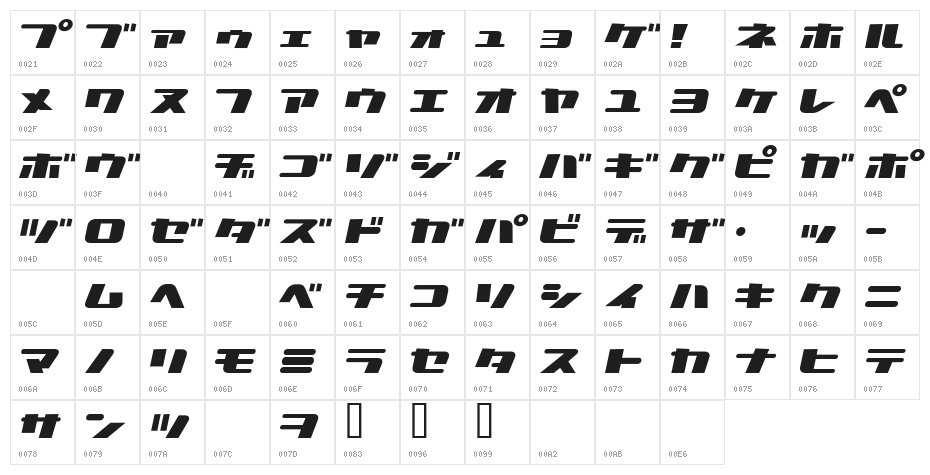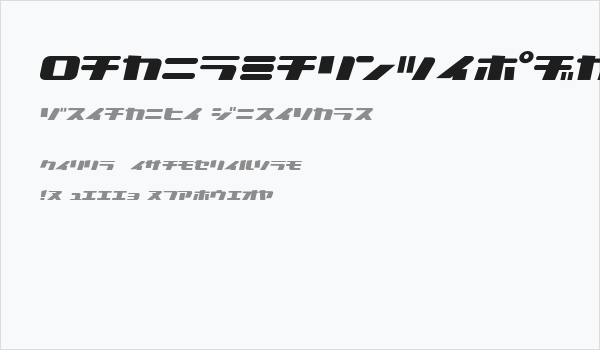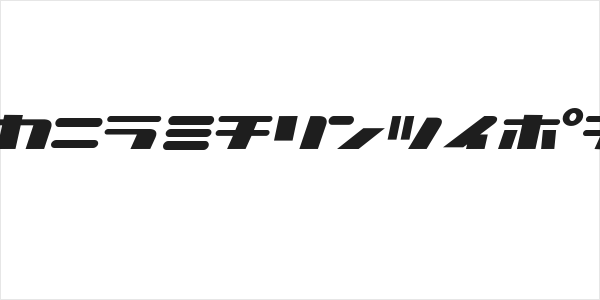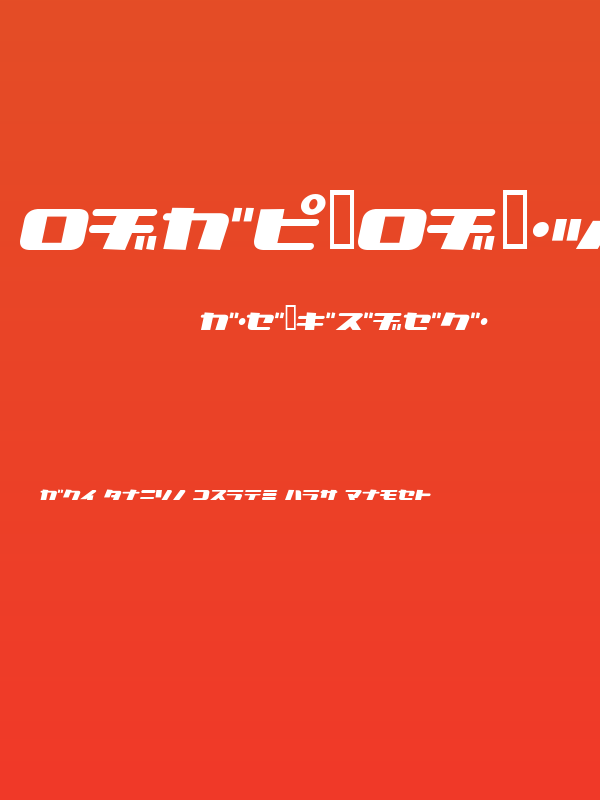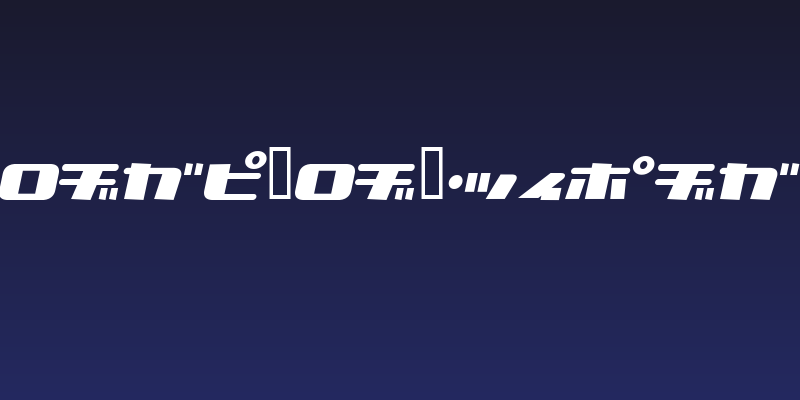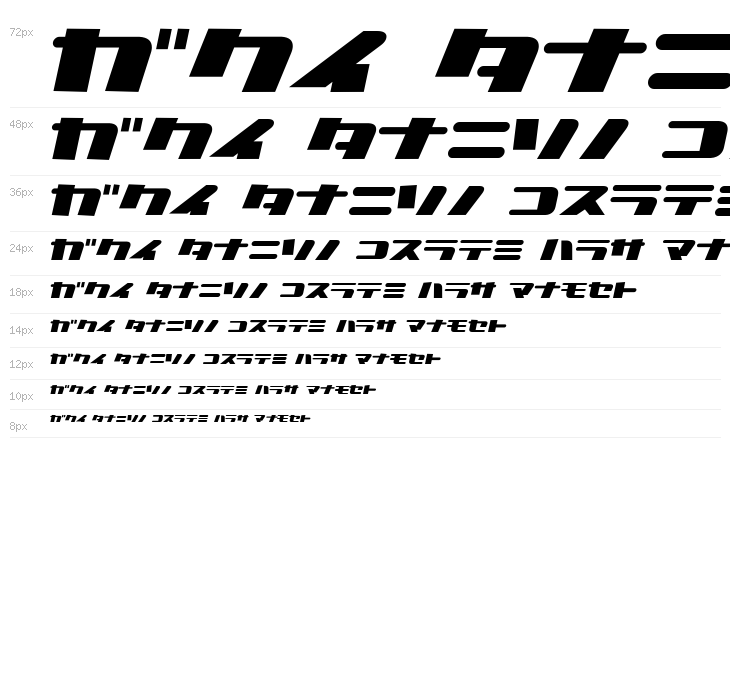
NationalyzeKAT Font
NationalyzeKAT Description
This font features a bold and dynamic style with a strong presence. The characters are designed with a slight forward slant, giving them a sense of motion and energy. The strokes are thick and consistent, providing a robust and impactful appearance. The overall design is modern and sleek, with a futuristic touch that makes it stand out. The spacing between characters is tight, enhancing the compact and cohesive look of the text. This font is ideal for projects that require a strong visual impact and a contemporary feel.